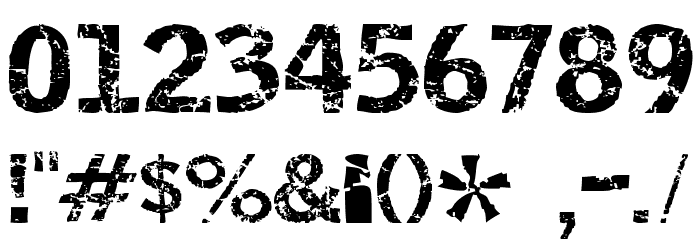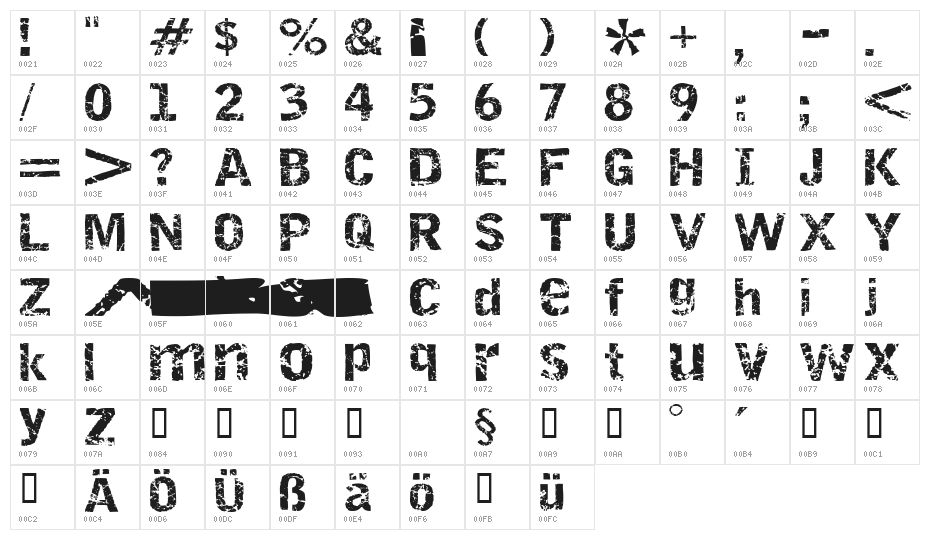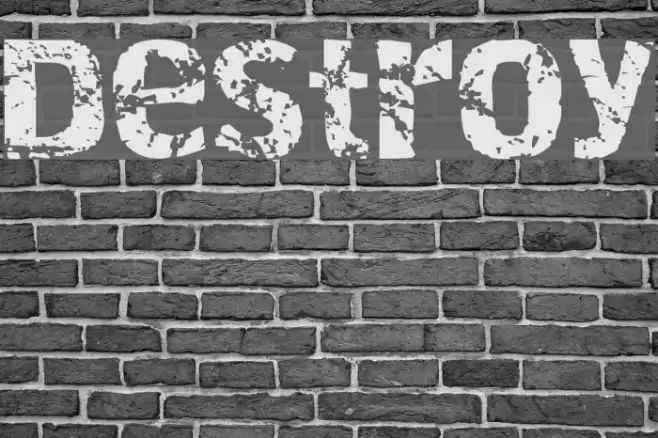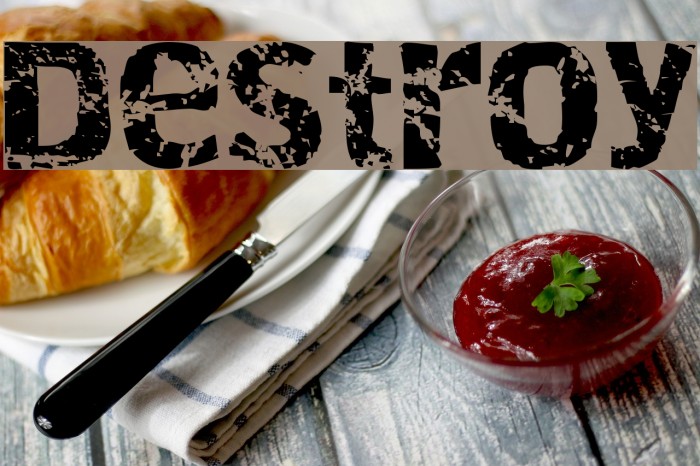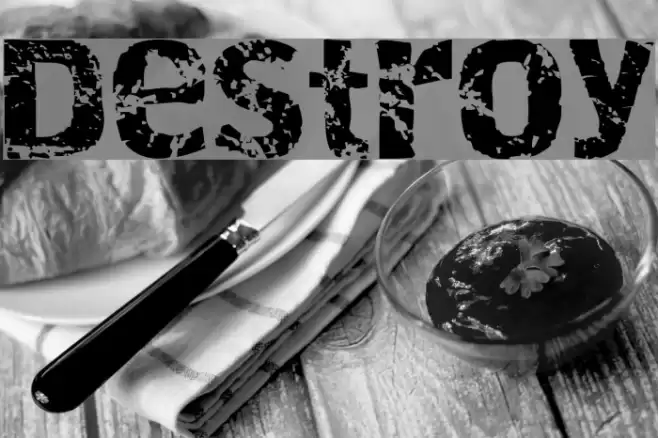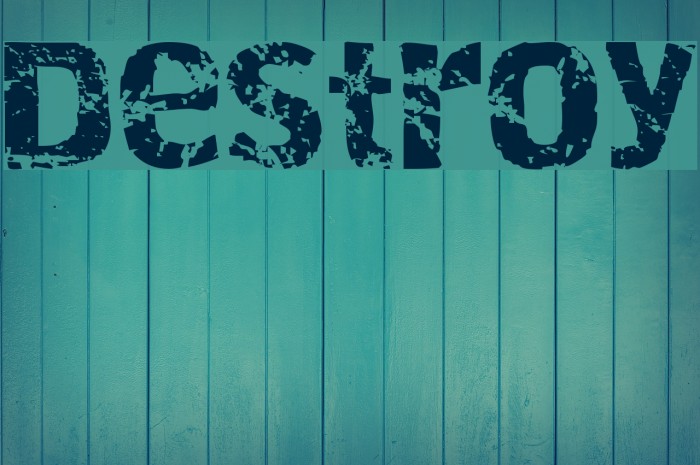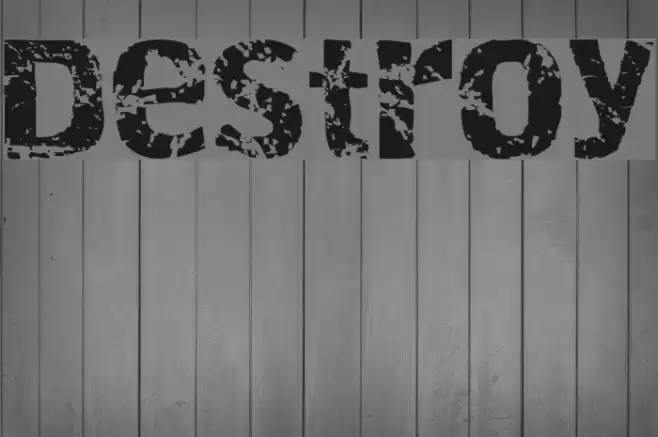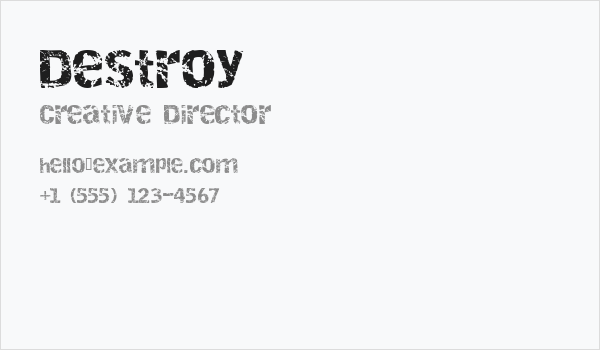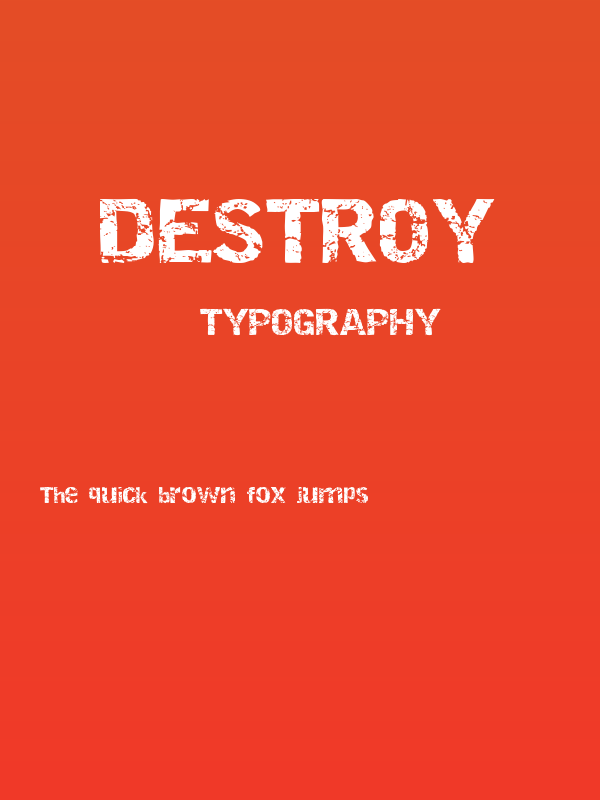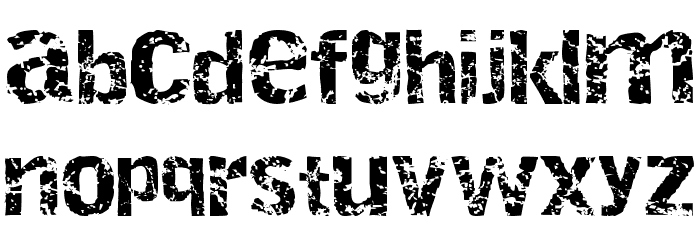
Destroy Font
Destroy Description
This font features a distressed, grunge style with a worn-out appearance, giving it a rugged and edgy look. The characters are bold and heavily textured, with irregularities that mimic a weathered or eroded surface. This design choice adds a sense of rawness and authenticity, making it ideal for projects that require a gritty or rebellious aesthetic. The uppercase and lowercase letters maintain a consistent style, while the numbers and special characters follow the same distressed pattern, ensuring uniformity across all elements.
| Overall Style | Grunge, Edgy, Distressed |
| Proposed Projects | Ideal for music album covers, urban-themed posters, streetwear branding, and edgy graphic designs. |